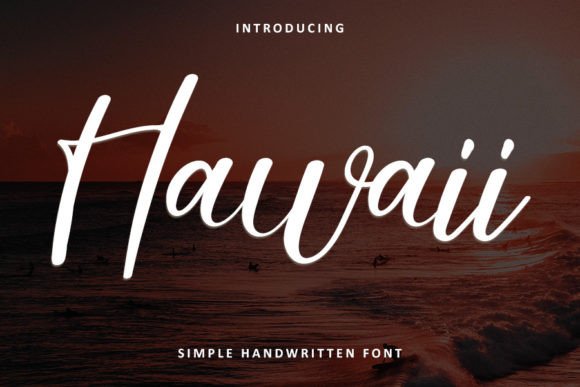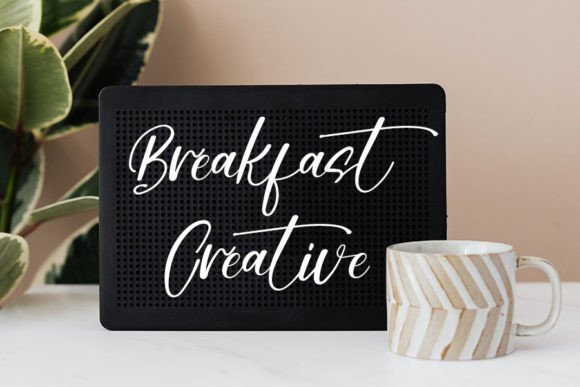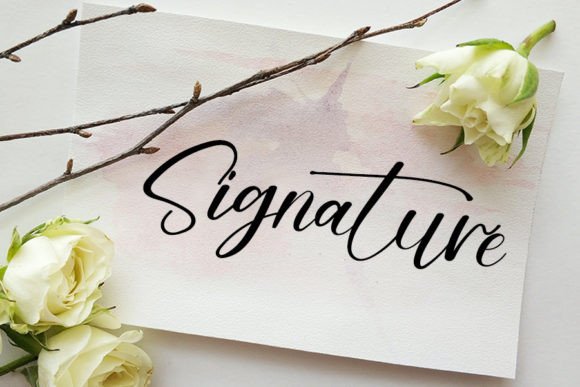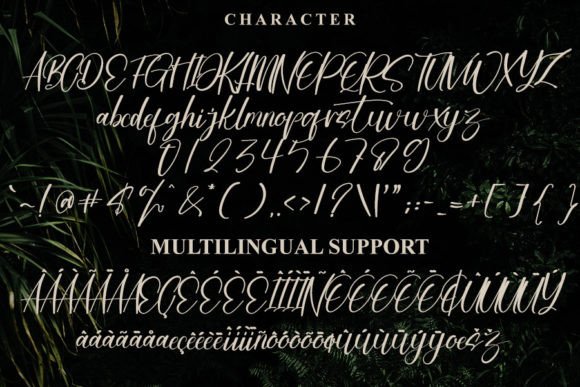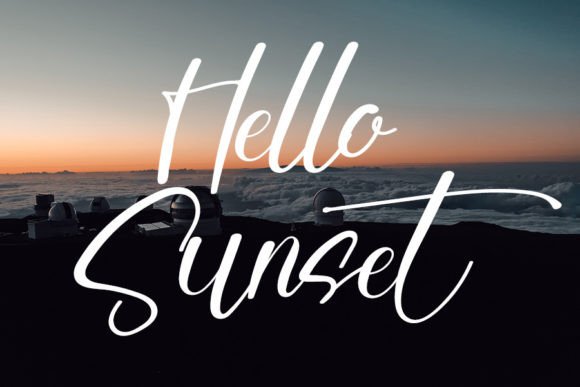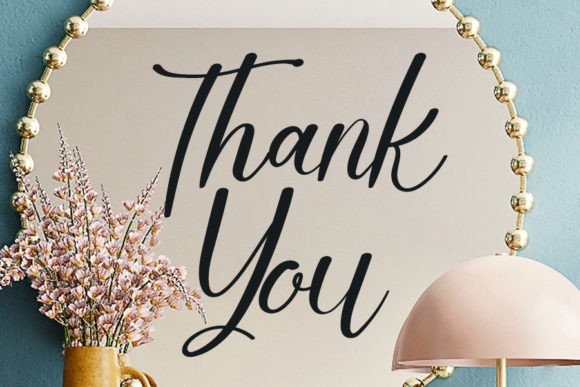
Hawaii Font
About Hawaii Font
Introducing Hawaii, a trendy handwritten font that emanates a contemporary atmosphere with impeccable form, drawing inspiration from timeless classic calligraphy. Crafted to bring elegance and class to your design projects, Hawaii is a versatile font suitable for a range of creative needs.
The appeal of Hawaii lies in its trendy yet classic calligraphy style, seamlessly blending modern aesthetics with timeless elegance. Whether applied to branding, invitations, packaging, or diverse creative projects, this font enhances visual appeal, resulting in designs that radiate both style and sophistication.
In branding, Hawaii serves as a refined and stylish choice, featuring calligraphic elements that contribute to a memorable brand identity, allowing it to stand out with an air of elegance.
Invitations adorned with Hawaii carry a sense of sophistication. Whether for weddings, events, or formal gatherings, the font introduces a refined touch, setting the tone for a stylish and memorable celebration.
Packaging designs benefit from Hawaii’s versatile and elegant style, elevating the perceived value of your products and making them visually appealing to a discerning audience.
Hawaii is designed to adapt to various design needs, allowing you to write various kinds of products according to the aspect of each need. Whether employed in digital designs or print materials, this font is crafted to make a visual impact.
In conclusion, Hawaii is a trendy handwritten font that brings timeless elegance to your designs. Choose Hawaii to add sophistication and class to your branding, invitations, packaging, and more, creating visually stunning and memorable outcomes.